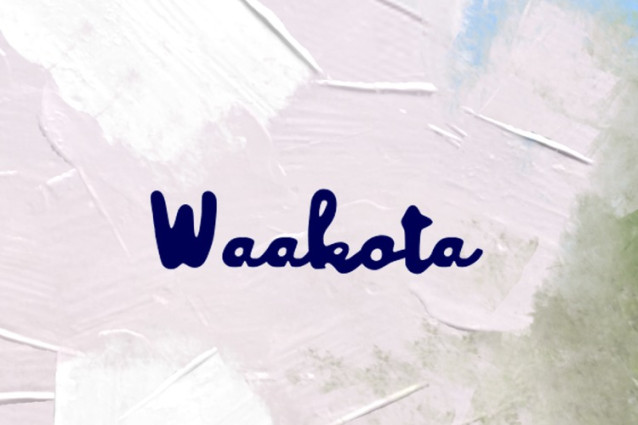
Waakota Font
Waakota Font, perfectly fit for branding, logo, wedding things, greeting cards, fashion, lookbook, marketing promotion, anytime you want to look fancy elegant but still casual.